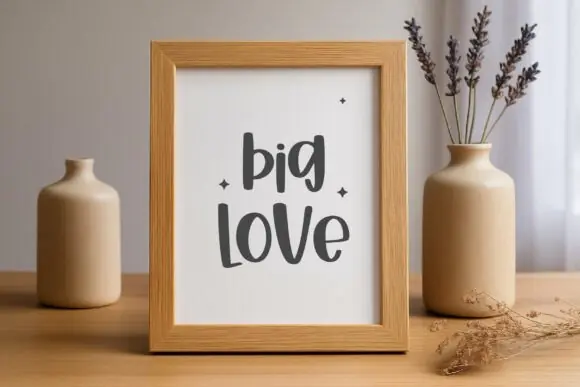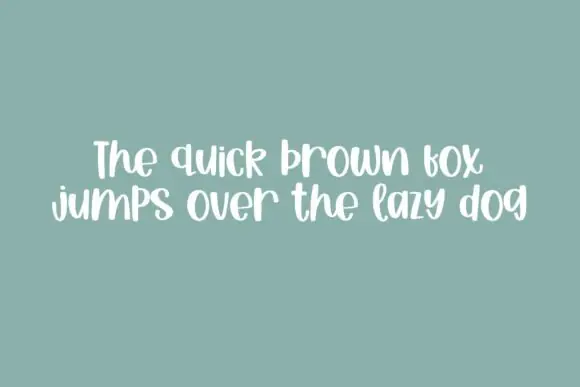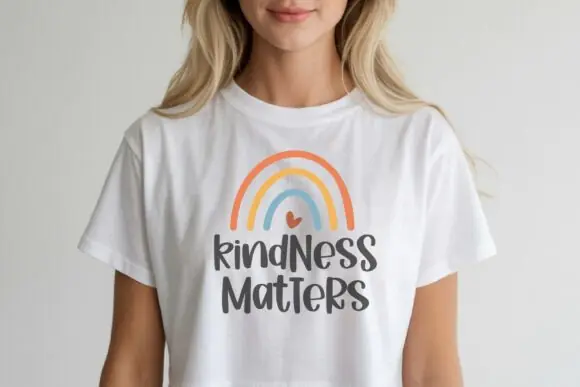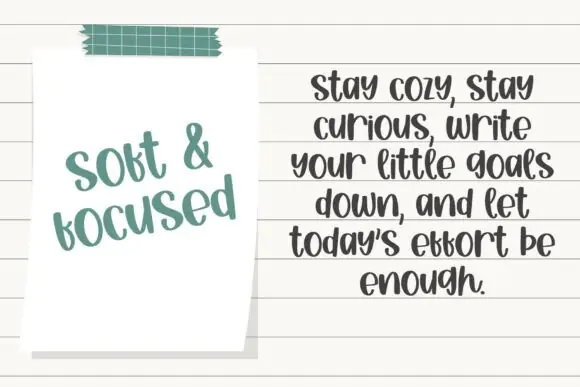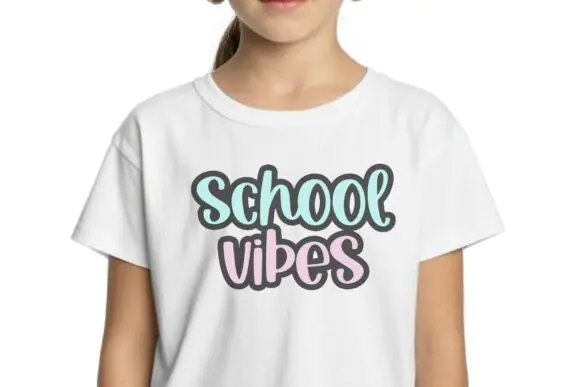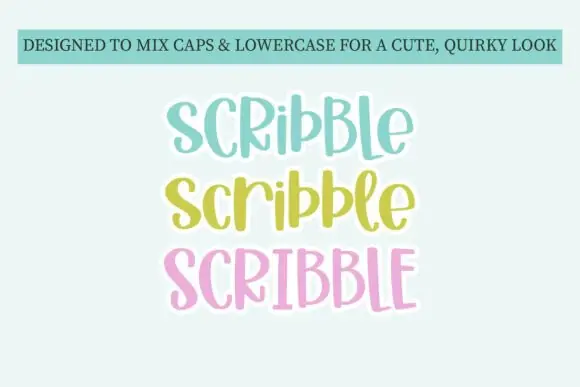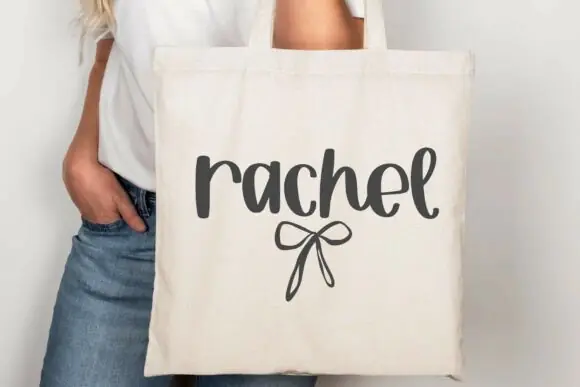
Chunky Scribble Font | Cute Chunky Handwritten Font for Kids Shirts, School Designs, Stickers, Planners, Cricut & Silhouette Projects
Create fun, playful, and easy-to-read designs with Chunky Scribble Font, a cute chunky handwritten font made for cheerful craft projects and kid-friendly designs. This font is designed to mix uppercase and lowercase letters for a quirky, lively look that adds personality to every word.
Chunky Scribble Font features soft curves and bold strokes, making it perfect for designs that need a cute handwritten feel while still remaining clear and readable. It works beautifully for kids’ shirts, school-themed designs, classroom materials, planner pages, stickers, mugs, tote bags, birthday designs, labels, greeting cards, printable wall art, SVG projects, and craft products.
This font is especially useful for Cricut and Silhouette projects, making it a great choice for crafters, teachers, SVG designers, small business owners, and digital product sellers who want to create fun, bold, and friendly designs.
• Kids’ t-shirt designs
• School-themed graphics
• Classroom materials
• Planner pages
• Stickers and labels
• Cricut Design Space projects
• Silhouette craft projects
• SVG designs
• Birthday cards and party designs
• Mug and tote bag designs
• Printable wall art
• Teacher resources
• Handmade gifts
• Cute digital products
• Cute chunky handwritten style
• Mixes uppercase and lowercase for a quirky look
• Soft curves with bold readable strokes
• Great for kids, school, planner, and sticker designs
• Perfect for Cricut and Silhouette projects
• Adds playful personality to creative work
• Suitable for both print and digital designs
Chunky Scribble Font is a beautiful choice for creating cheerful, bold, and friendly designs that feel handmade, fun, and full of charm.